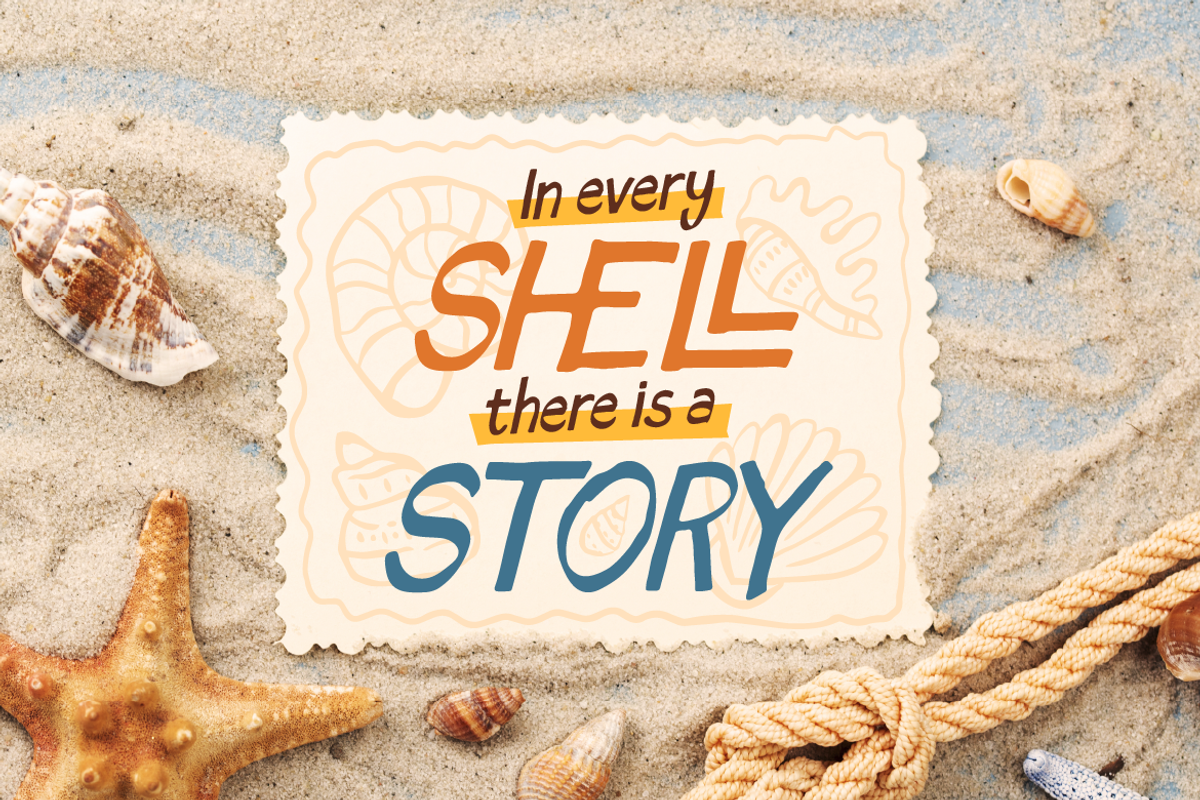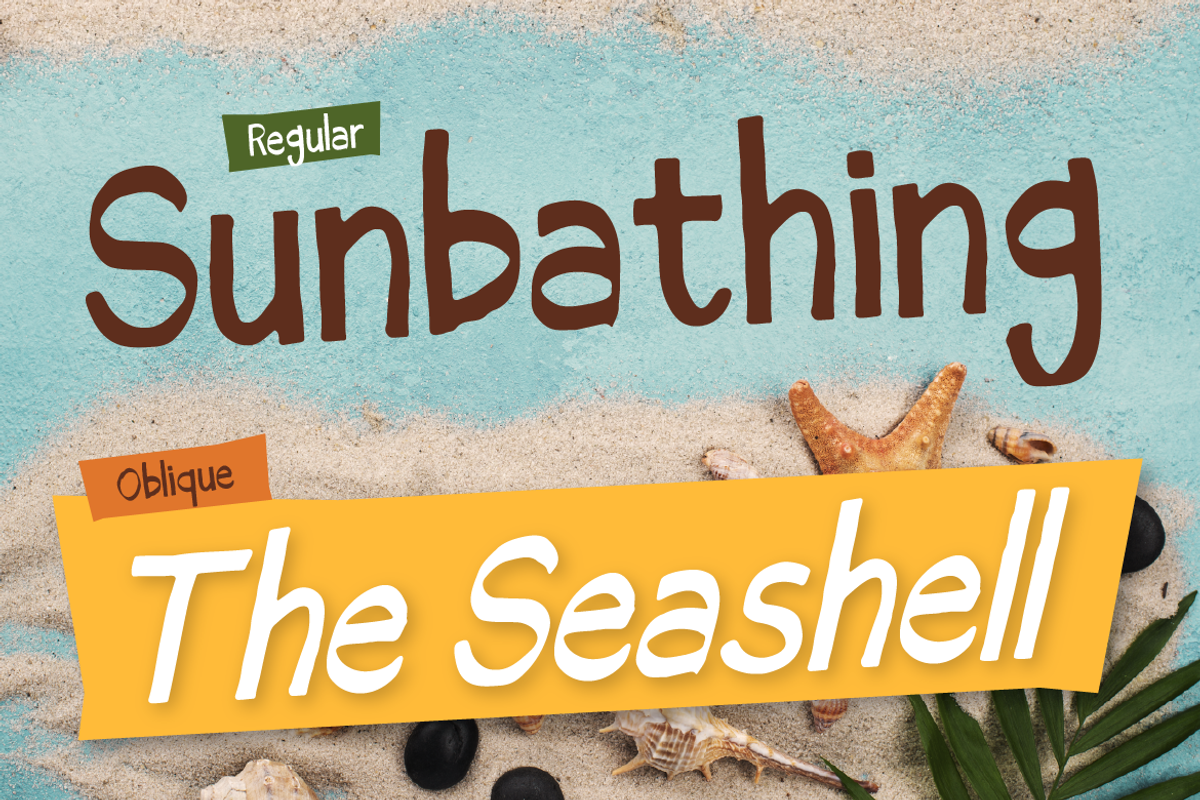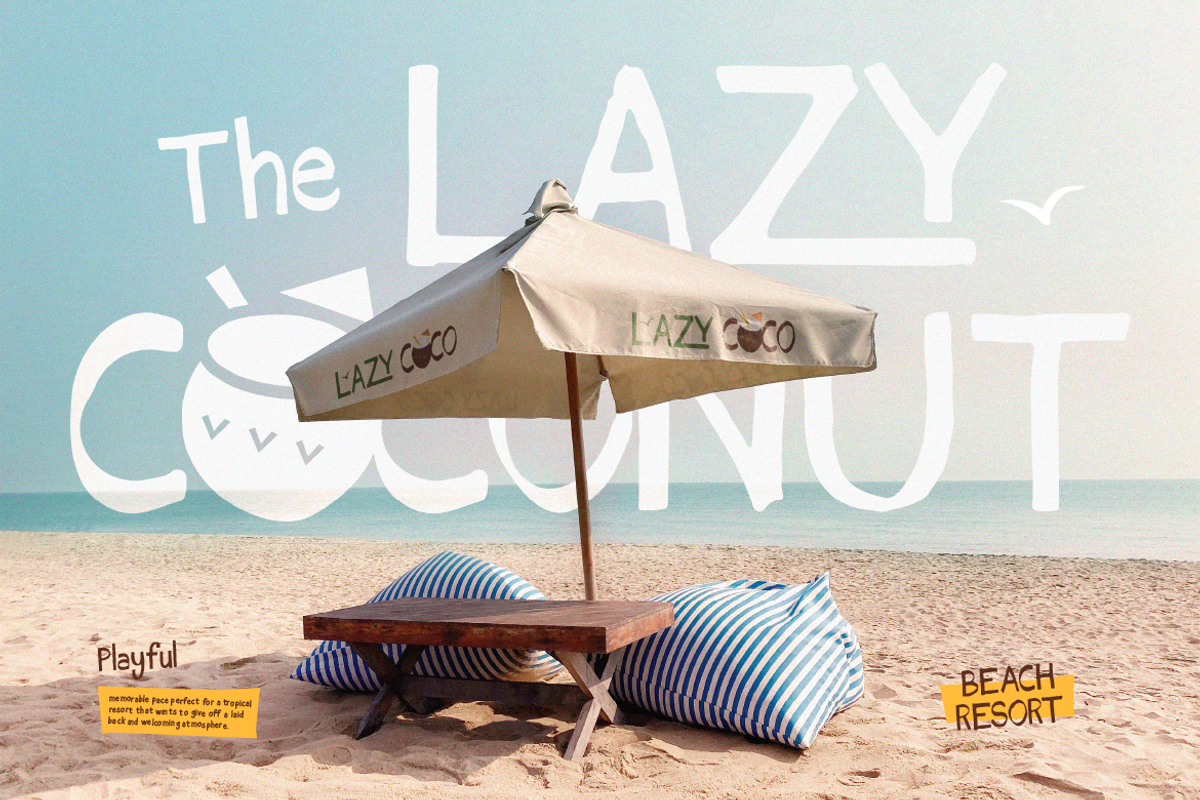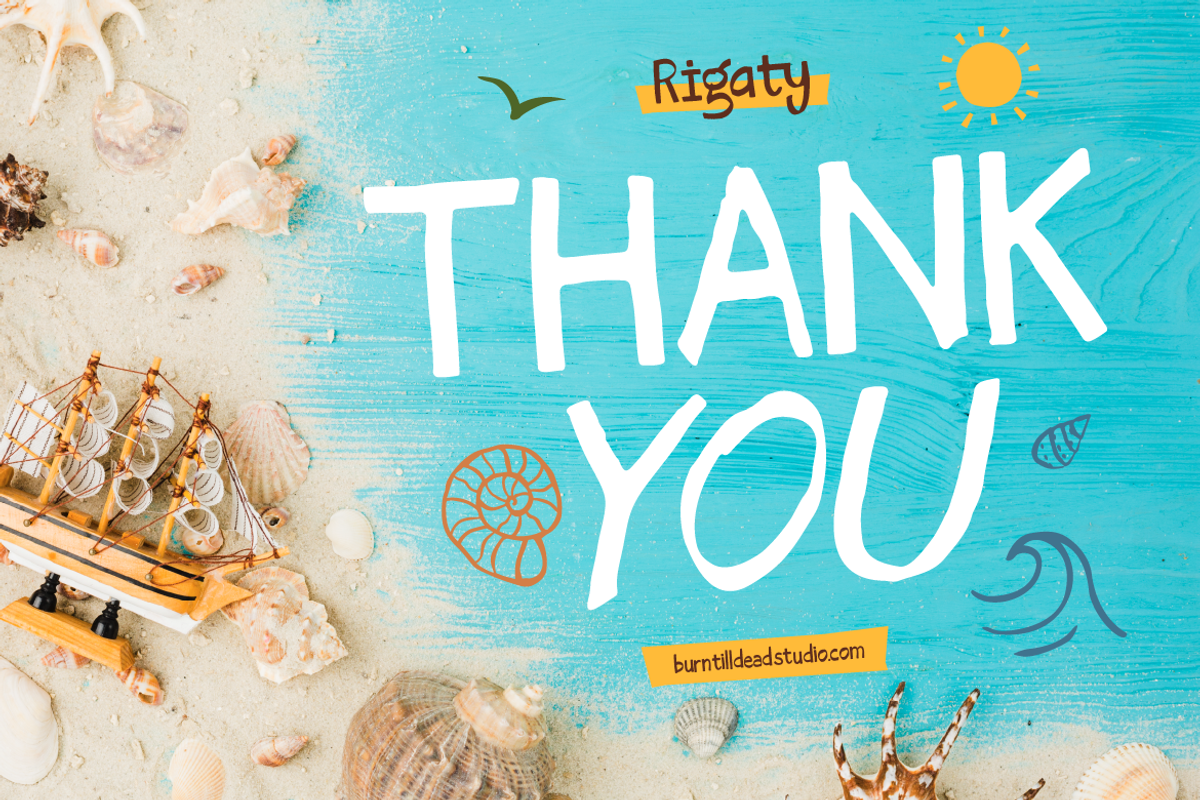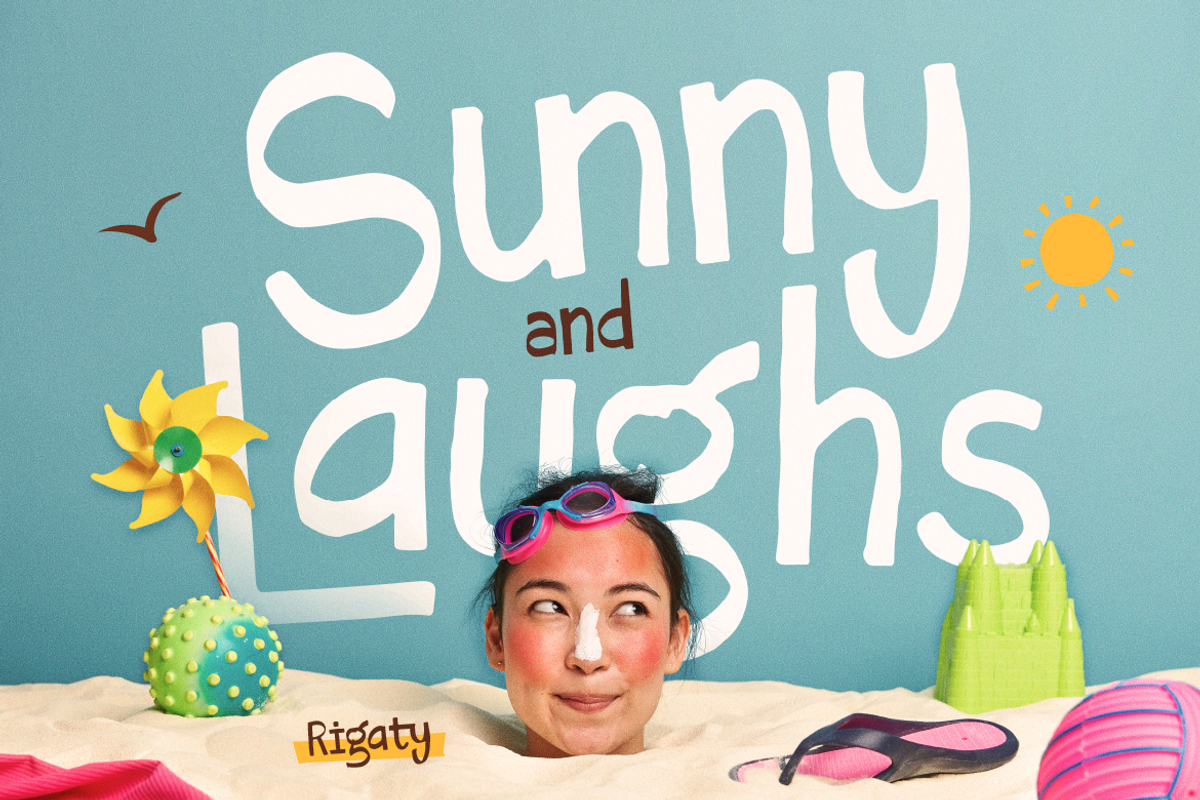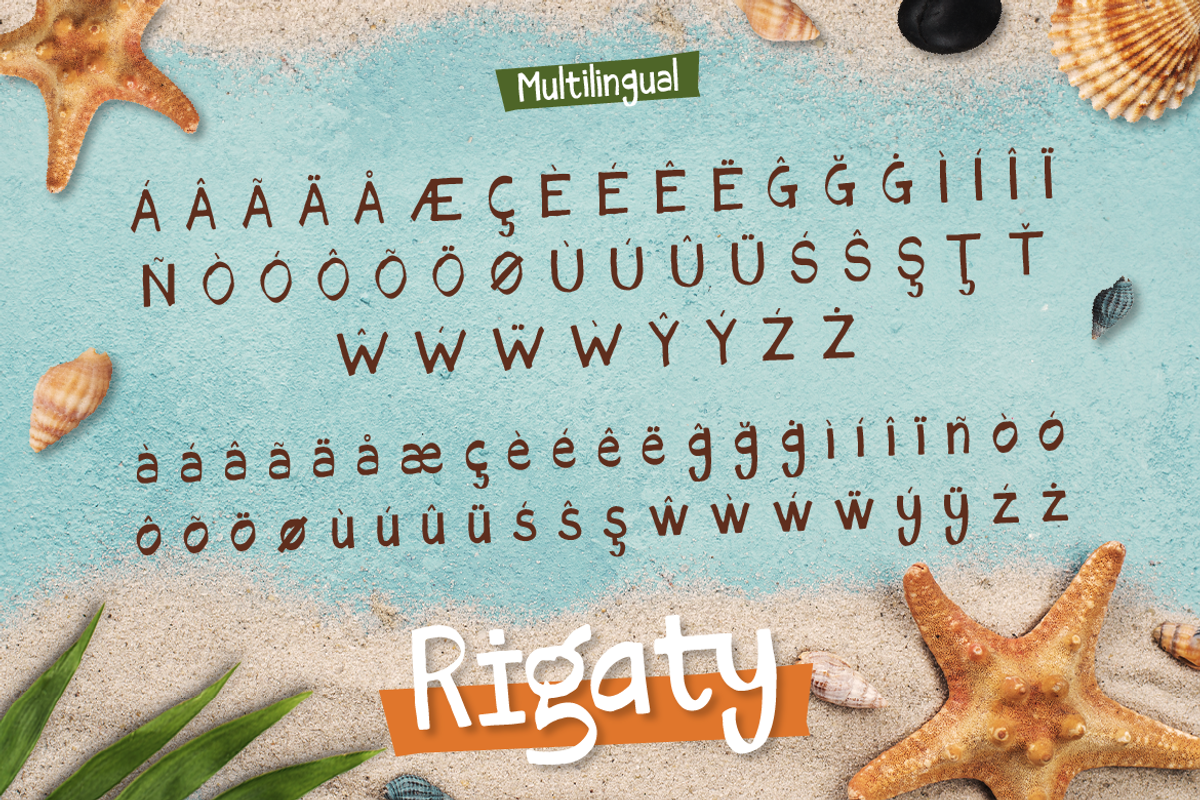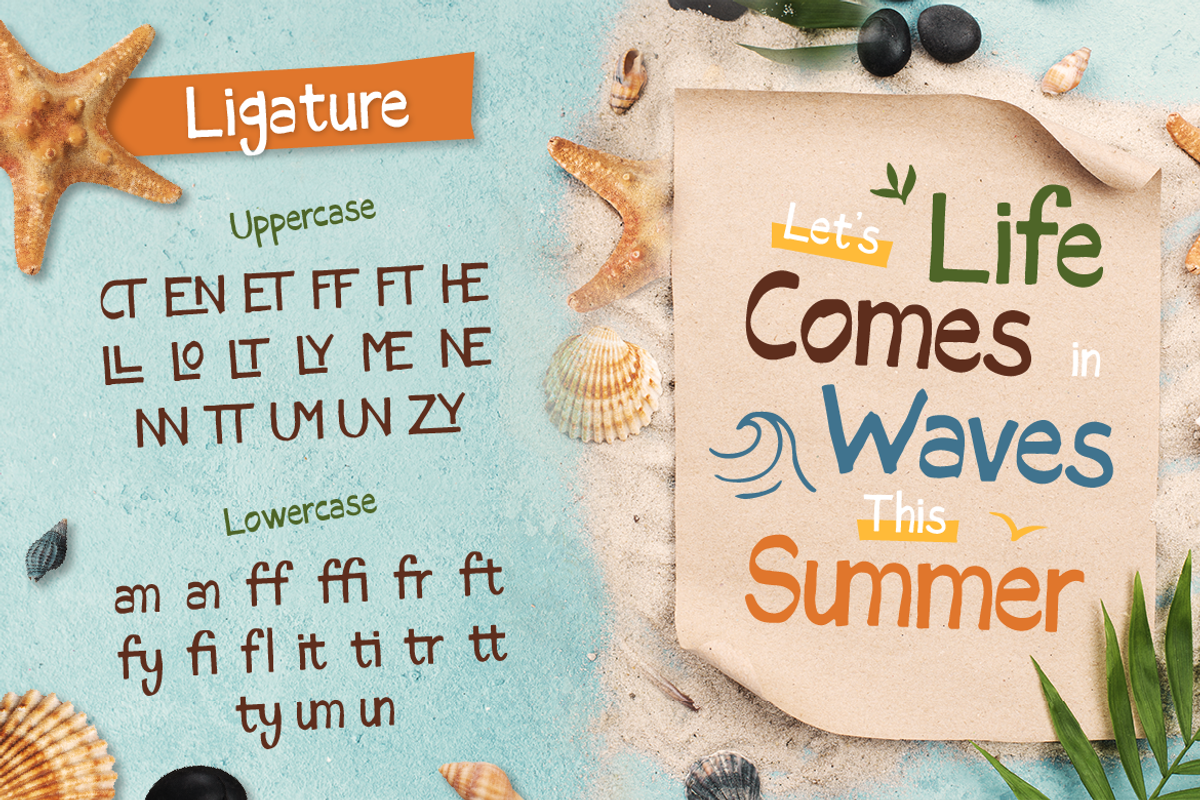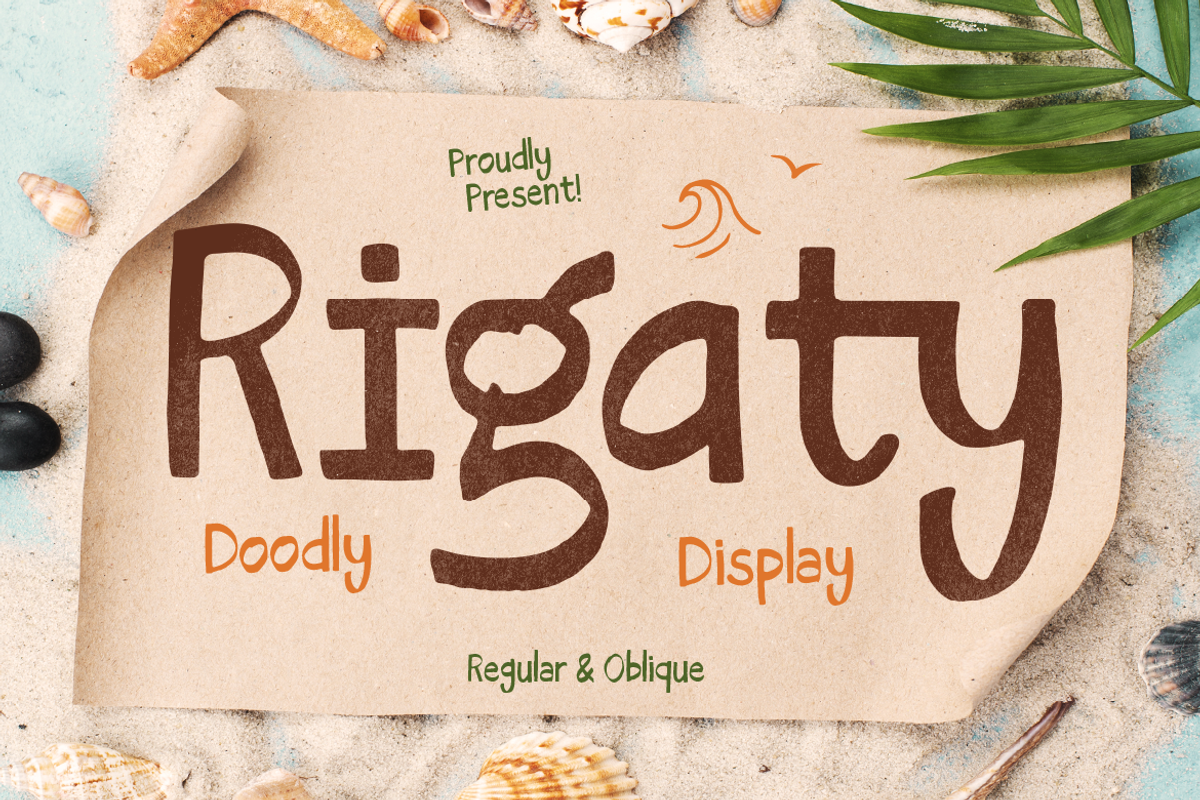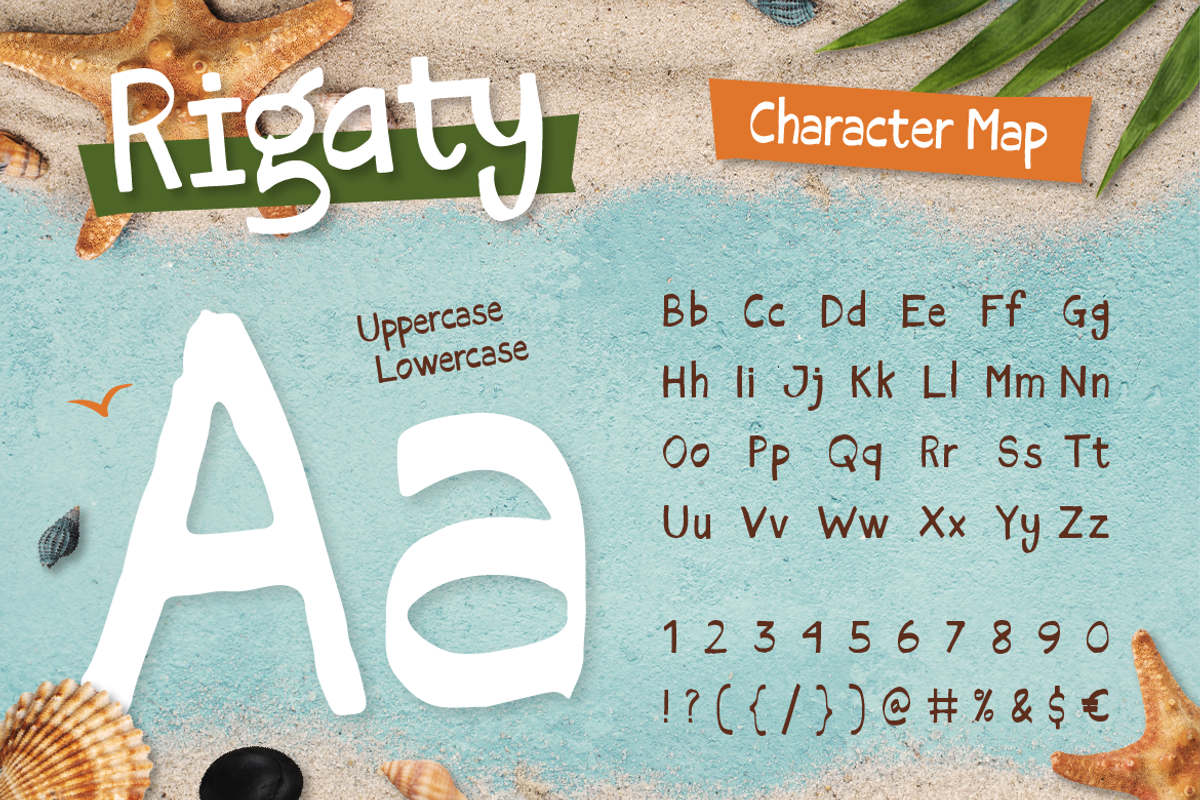
Rigaty
Meet Rigaty, a doodle display font with a playful vibe, a touch of cuteness, and a whole lot of character. It’s a handmade font with quirky, irregular shapes — and that’s exactly what makes it so charming! Rigaty comes in two styles: Regular & Oblique, perfect for fun and relaxed design projects that feel personal and approachable. Whether you're crafting summer-themed posters, playful packaging, children's books, or cheerful quote graphics, Rigaty brings a burst of personality into your work. With its spontaneous hand-drawn look, Rigaty captures the carefree feeling of beach days, doodles on paper, and a splash of creativity. It’s the ideal choice for any project that wants to feel fun, friendly, and full of life!